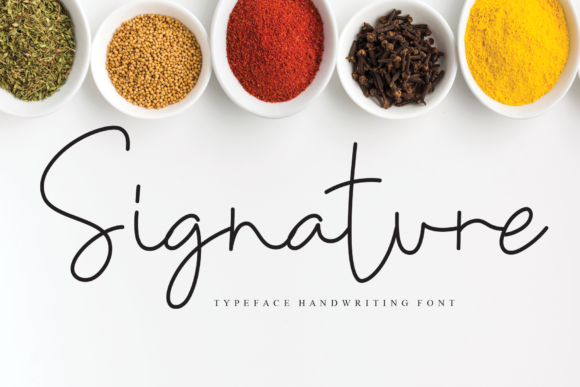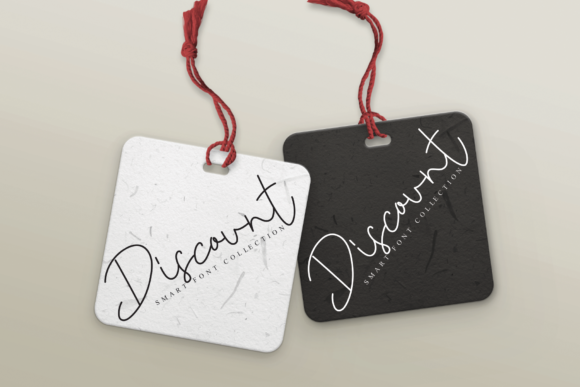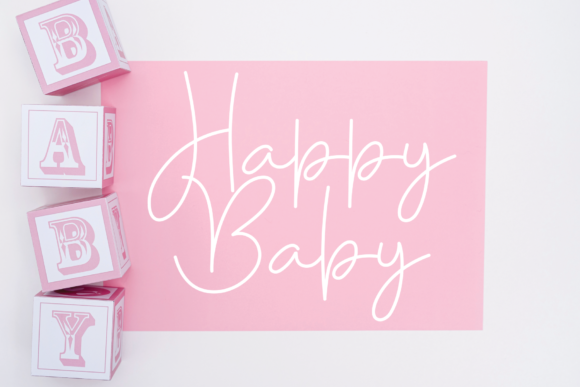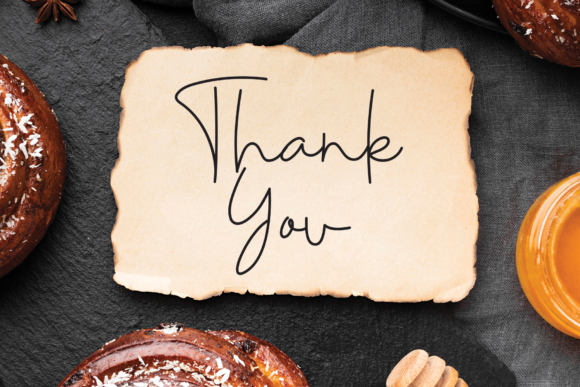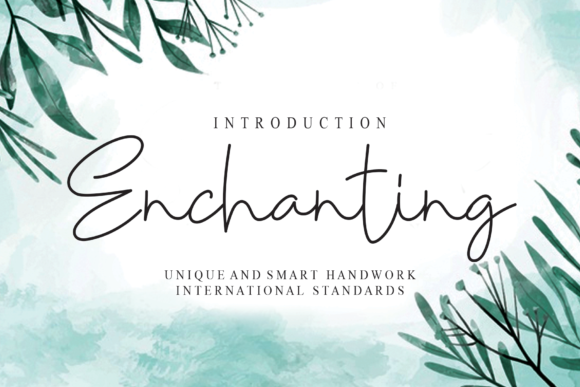
Discover the Magic of Enchanting Font: Elevate Your Designs with Elegance
In the world of typography, few fonts manage to capture the essence of elegance and charm as effectively as the Enchanting Font. This stylish and delicate script font has been making waves in the design community, and for good reason. Its clean, thin, and smooth vibe makes it an ideal choice for a wide range of design projects, from wedding invitations and branding materials to digital content and craft projects.
The Characteristics of Enchanting Font
So, what sets Enchanting Font apart from other script fonts on the market? Here are a few key characteristics that make it a standout:
- Clean and Thin Lines: Enchanting Font boasts clean, thin lines that give it a sophisticated and refined look. This makes it perfect for designs where you want to convey a sense of luxury or elegance.
- Smooth and Flowing Script: The font features a smooth, flowing script that is easy on the eyes. This makes it ideal for body text, as well as for headlines and titles.
- Delicate and Dainty: Enchanting Font has a delicate and dainty feel that makes it perfect for designs where you want to add a touch of whimsy or romance.
- Highly Versatile: Whether you’re working on a digital project or a print project, Enchanting Font is highly versatile and can be used in a variety of contexts.
Why Designers and Crafters Love Enchanting Font
Enchanting Font has quickly become a favorite among designers and crafters, and it’s easy to see why. Here are a few reasons why this font is a hit:
- Elegant and Sophisticated: Enchanting Font adds a touch of elegance and sophistication to any design. Whether you’re working on a luxury brand or a high-end product, this font is sure to impress.
- Easy to Read: Despite its delicate lines, Enchanting Font is surprisingly easy to read, making it perfect for body text as well as headlines.
- Customizable: Enchanting Font comes in a range of styles and weights, making it easy to customize to suit your design needs.
- Perfect for Crafting: Whether you’re working on a craft project, such as making wedding invitations or gift tags, Enchanting Font is a great choice.
Using Enchanting Font in Your Designs
So, how can you use Enchanting Font in your designs? Here are a few ideas to get you started:
- Wedding Invitations: Enchanting Font is perfect for wedding invitations, adding a touch of romance and elegance to your design.
- Branding Materials: Use Enchanting Font to add a touch of sophistication to your branding materials, such as business cards and brochures.
- Digital Content: Enchanting Font is also great for digital content, such as blog posts and social media graphics.
- Craft Projects: Whether you’re making gift tags, cards, or other craft projects, Enchanting Font is a great choice.
Tips for Getting the Most Out of Enchanting Font
Here are a few tips for getting the most out of Enchanting Font:
- Pair it with Bold Fonts: Enchanting Font pairs well with bold fonts, which can help to create a striking contrast.
- Experiment with Colors: Don’t be afraid to experiment with different colors and textures to add depth and interest to your design.
- Use it Sparingly: While Enchanting Font is beautiful, it can be overwhelming if used too much. Use it sparingly to create a sense of drama and impact.
In conclusion, Enchanting Font is a stylish and delicate script font that is sure to elevate your designs with its elegant and sophisticated vibe. Whether you’re a designer or a crafter, this font is a great choice for a wide range of projects. So why not give it a try and see the magic for yourself?